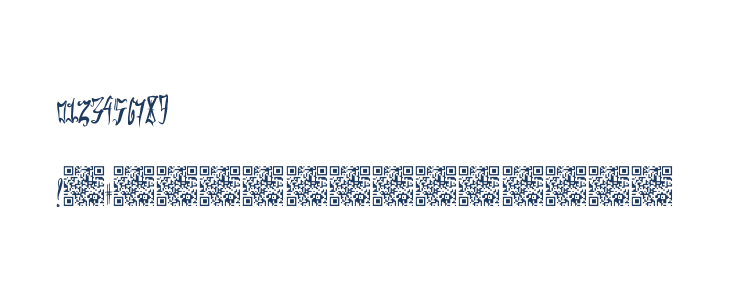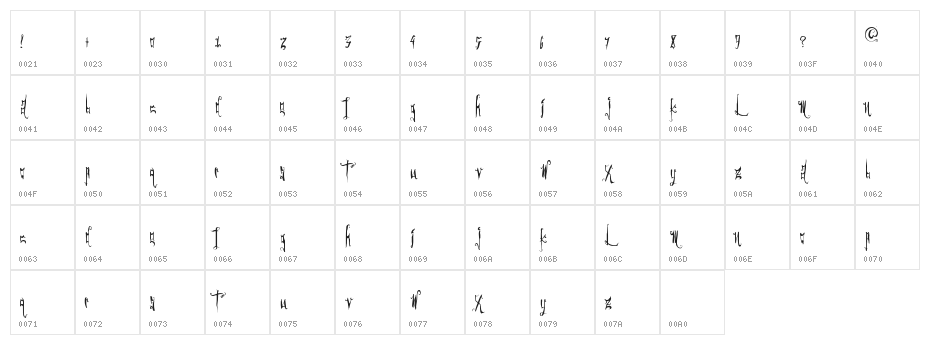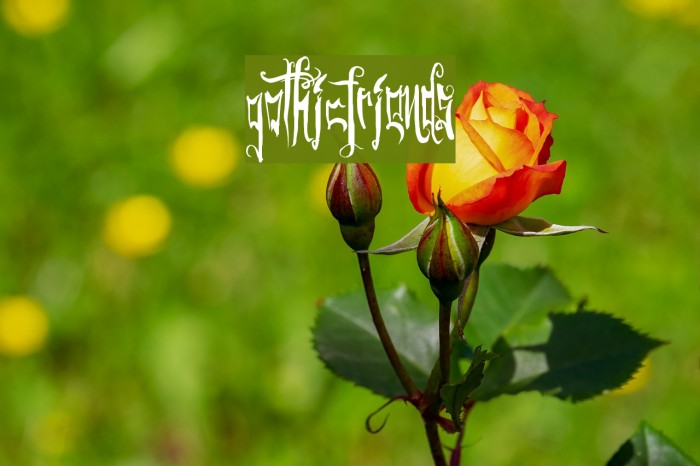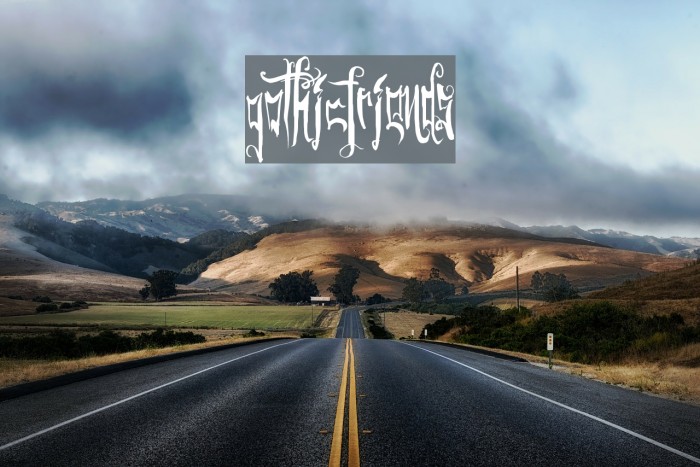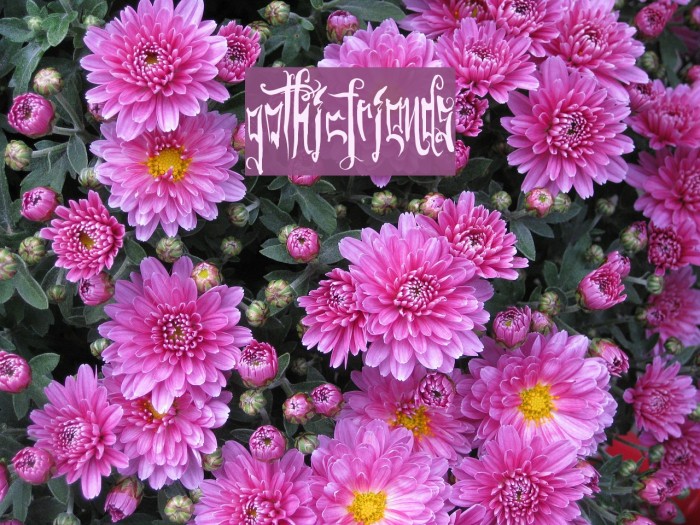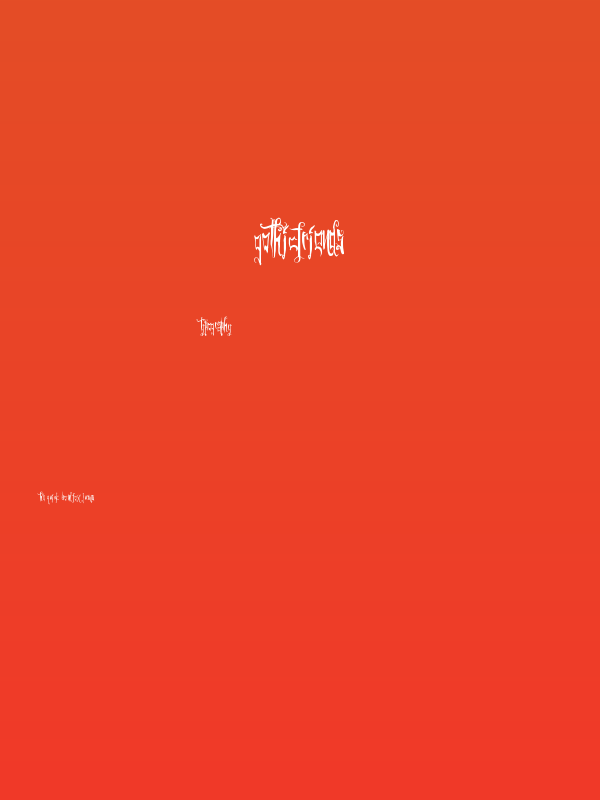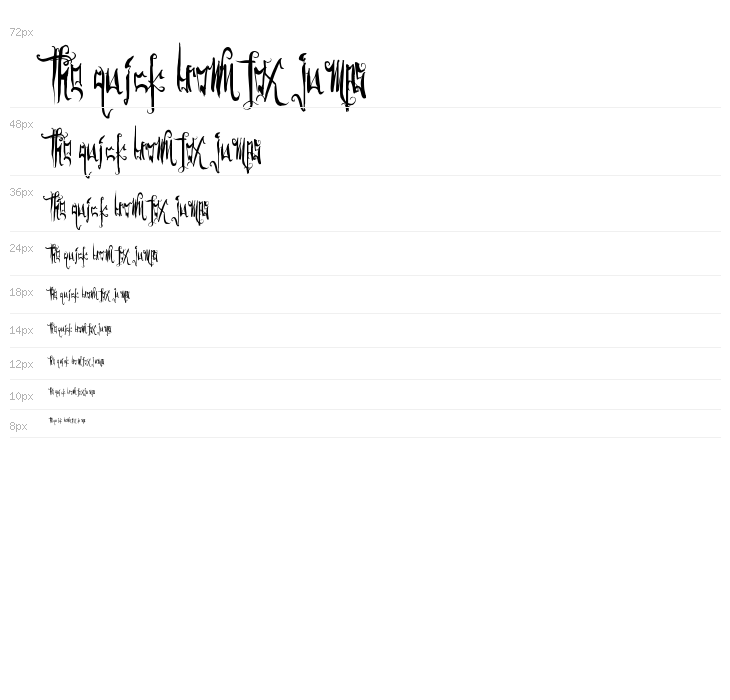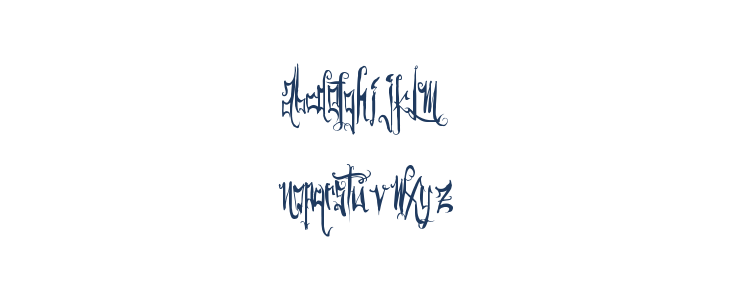
GothicFriends Font
GothicFriends Description
This font features an intricate and ornate design, reminiscent of traditional Gothic calligraphy. Each character is embellished with elaborate flourishes and sharp, angular strokes, creating a dramatic and visually striking appearance. The uppercase letters are particularly elaborate, with extended serifs and decorative elements that enhance their grandeur. The lowercase letters maintain the same level of detail, ensuring consistency across the typeface. The numerals and special characters are equally ornate, making them suitable for decorative purposes. This font is ideal for projects that require a historical or medieval aesthetic.
| Use Case | Logos, Headlines, Decorative text |
| Proposed Projects | Ideal for medieval-themed designs, book covers, posters, and branding that requires a historical or dramatic flair. |